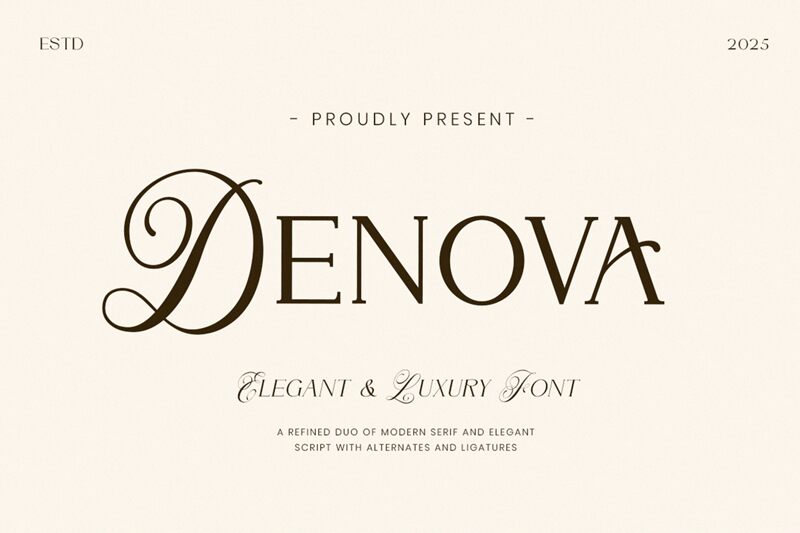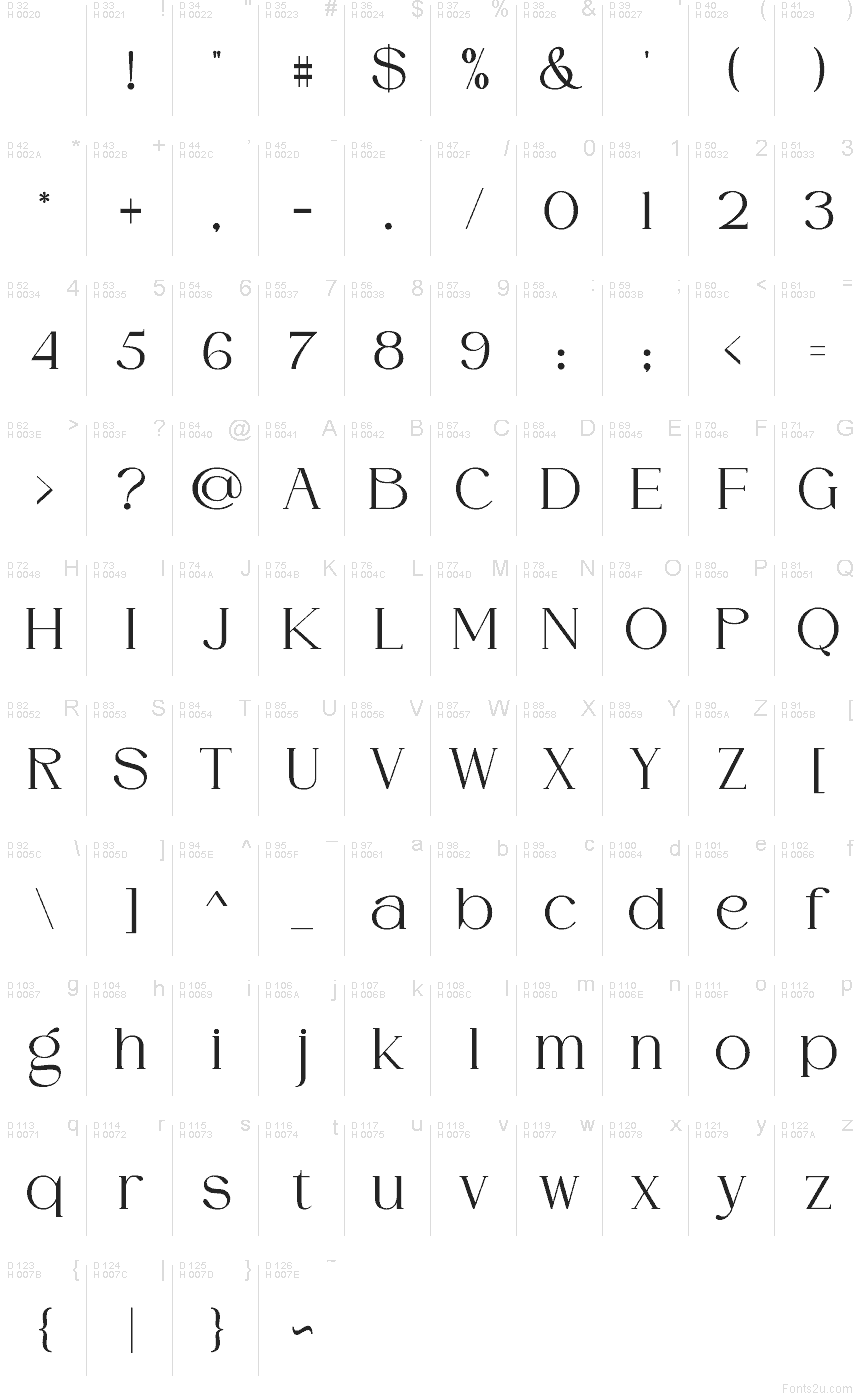
DENOVA
DENOVA font by Toni Studio is a free modern serif font with runway polish—tall proportions, crisp hairline strokes, and knife-clean serifs that feel like ink on glossy paper. Its roomy spacing and confident rhythm keep wordmarks looking luxe without trying too hard, especially in all caps.
Using DENOVA on fashion branding, magazine mastheads, perfume packaging, boutique signage, film titles, premium skincare labels, or event invitations brings instant refinement. Set it large with generous tracking for headlines, then pair it with a quiet sans like Inter or Helvetica for body copy—this free font does the elegant heavy lifting.